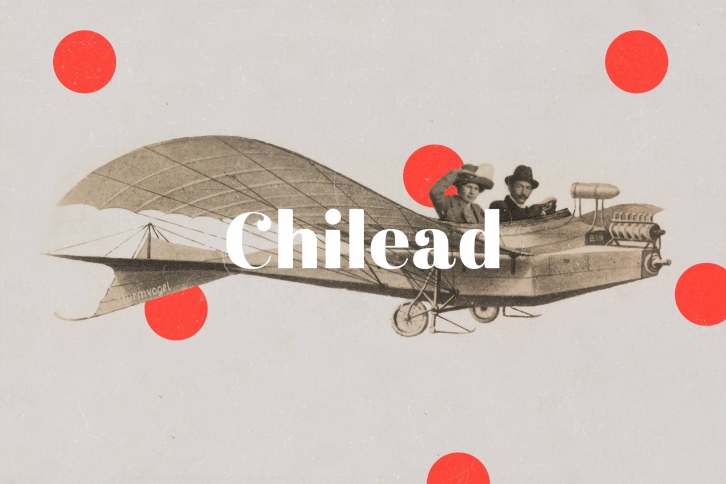
Chilead — Classic Sans Serif FONT Download
Chilead Classic Sans Serif
Chilead Sans Serif is reminiscent of the early days of magazine publishing: its elegant curves, high contrast and all-round kind feel are perfect for art projects and typography across all platforms. It looks great for titles, but is not out of the place in a text either -- which makes it a perfect choice for artists and designers who pursue not only the aesthetic qualities of the font, but also its functionality.
What's included in Chilead Font item?
• Ligatures (Th, ff, fi, fj, etc.)
• Multilingual Support (˘`´ˆ¨ etc.) for both Caps and Lowercase
• Numerals.
What's new in Chilead 2.0 Update (June 10, 2019)
• Major update on glyphs’ outlines.
• Cosmetic tweaks.
• Added a few discretionary ligatures (fl, fk, ft, fj).
• Refurbished kerning.
• New bowl shape (now with cleaner curves).
• Added a new stylistic set (smoother curves in bowls) for some letters.
• Lots of foreign symbols: more than 70 added in this update only.
• Fully compatible with all Western, Central and South Eastern European languages.
• Re-drawn, better adjusted diacritics.
• Updated OpenType features.
• Added new punctuation.
• Fixed occasional overlaps.